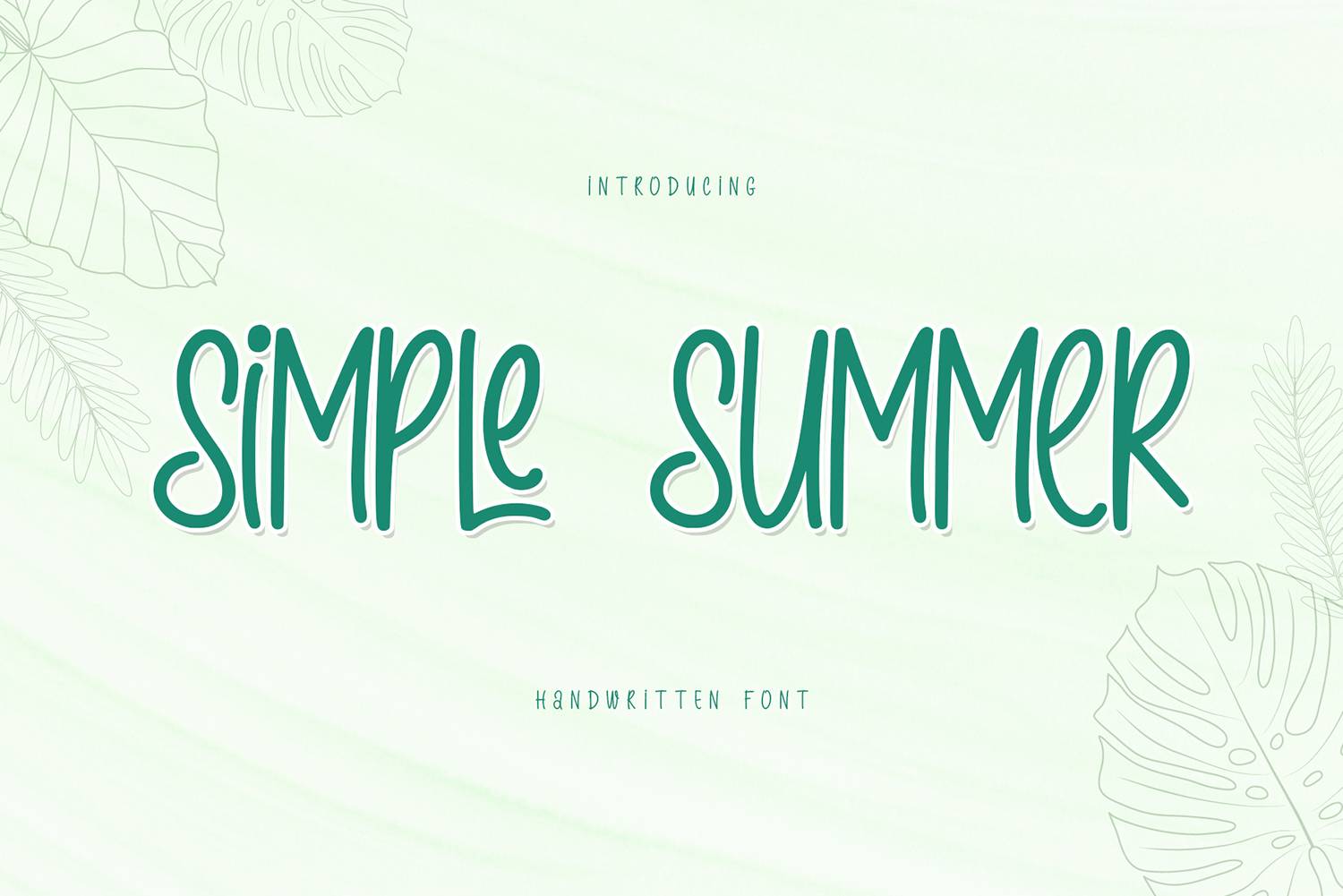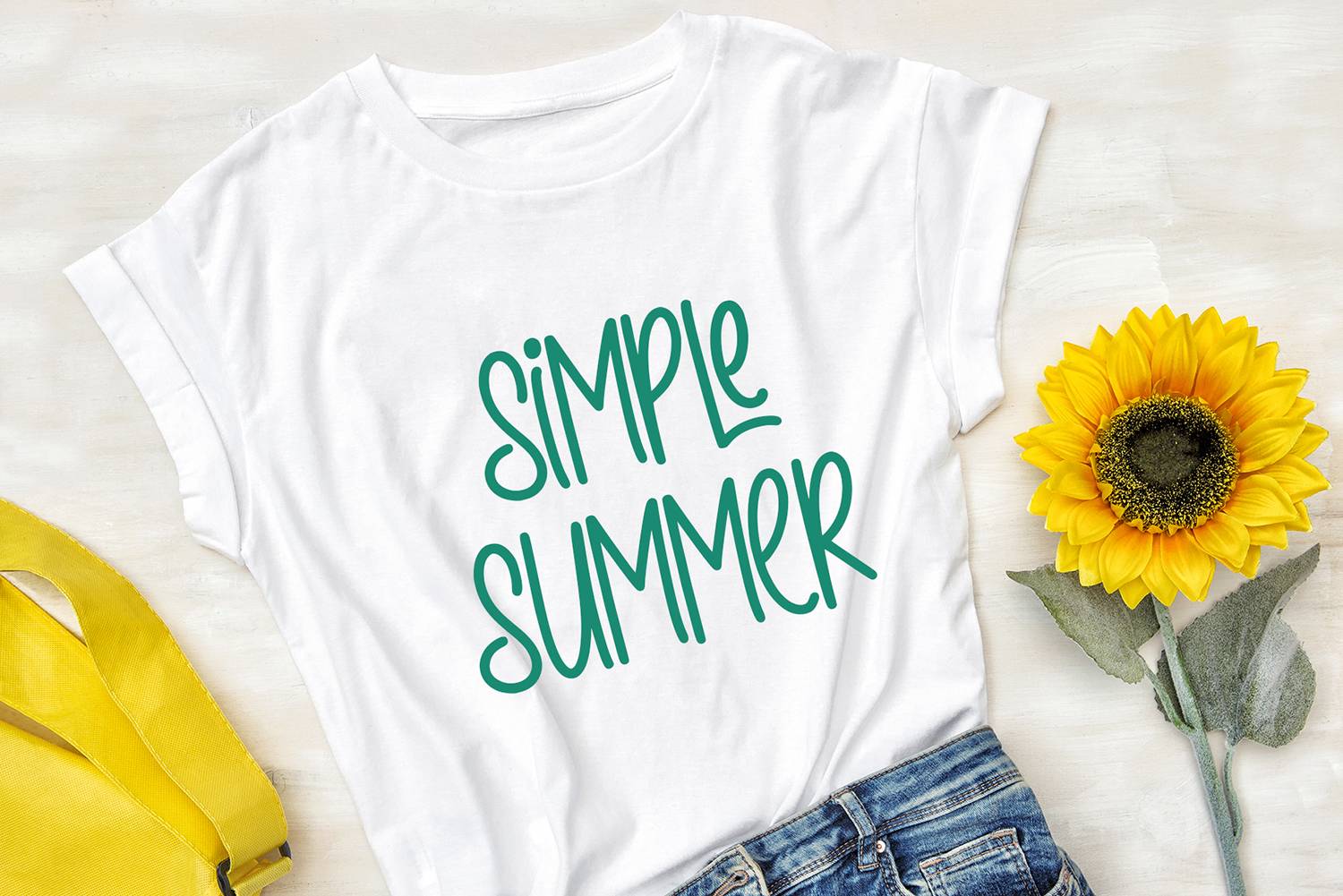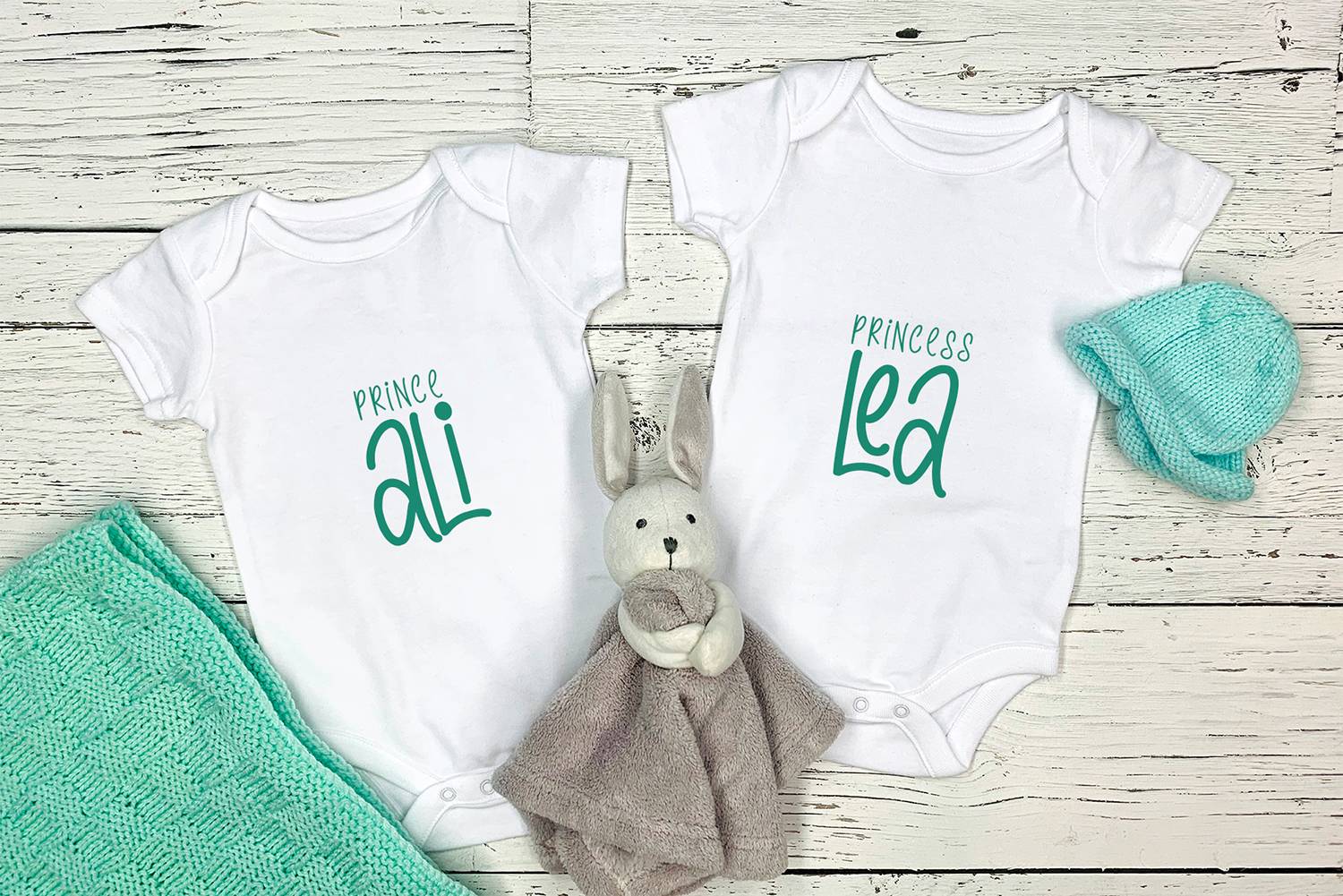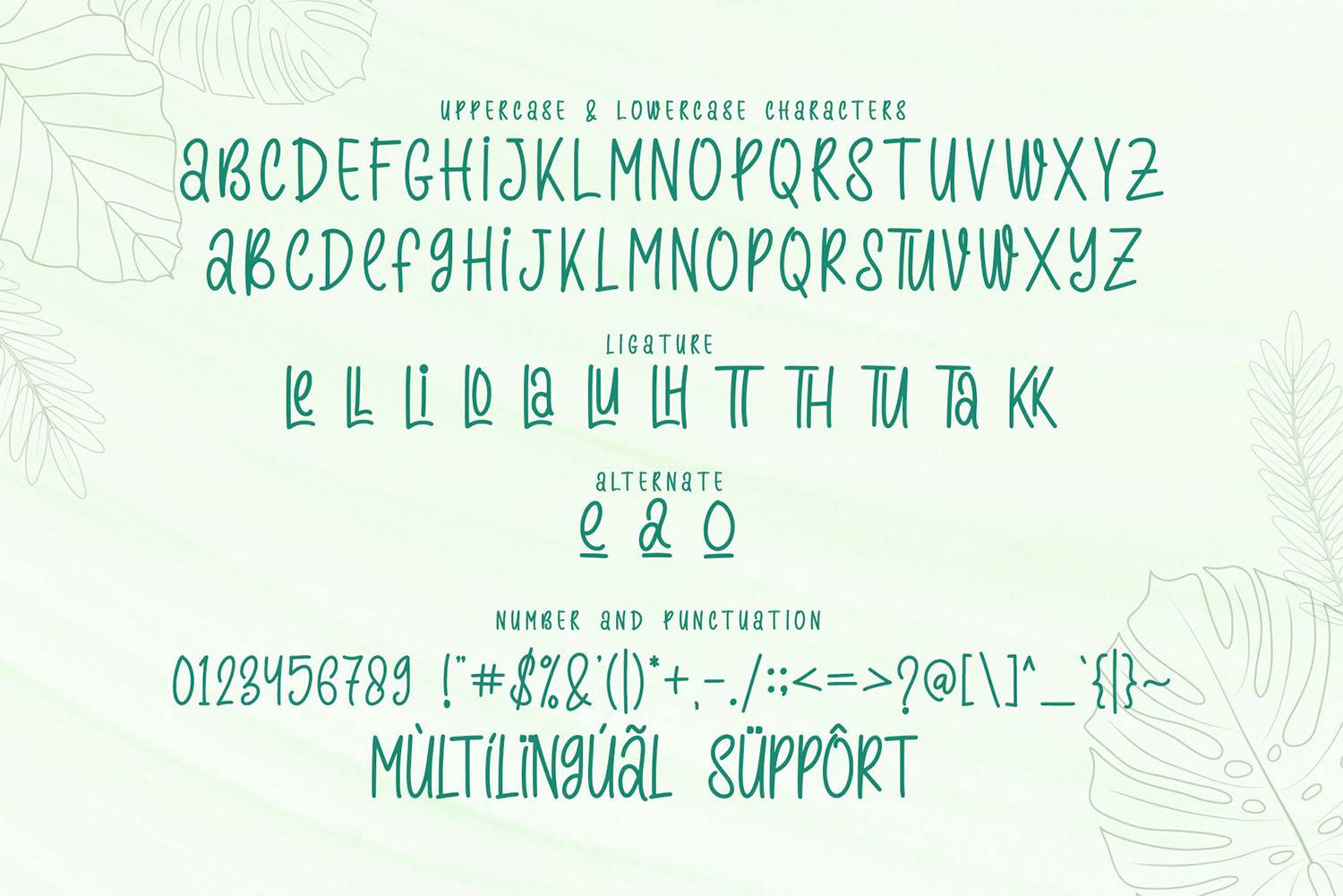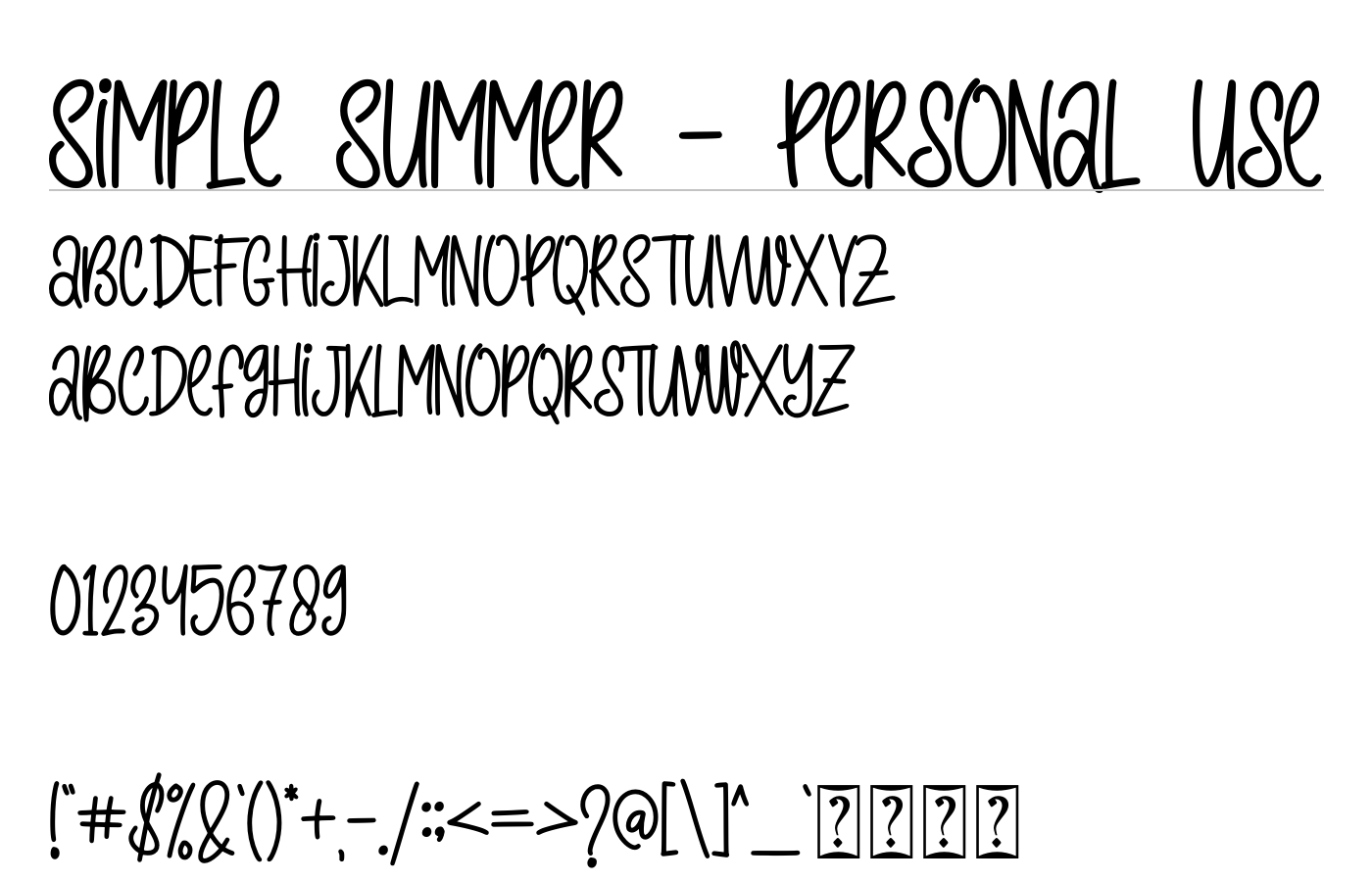
Simple Summer Font is a playful and casual handwritten sans serif with tall, narrow letterforms that bring a light, breezy feel. Its thin strokes and slightly quirky shapes make it ideal for fun, informal designs such as personal projects, invitations, and creative branding with a friendly, approachable vibe. This font works well in headlines and decorative text where a relaxed, youthful personality is desired.
Simple Summer Font